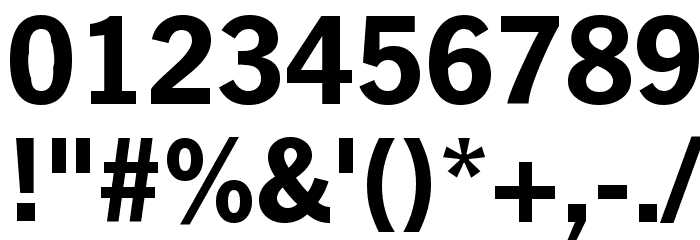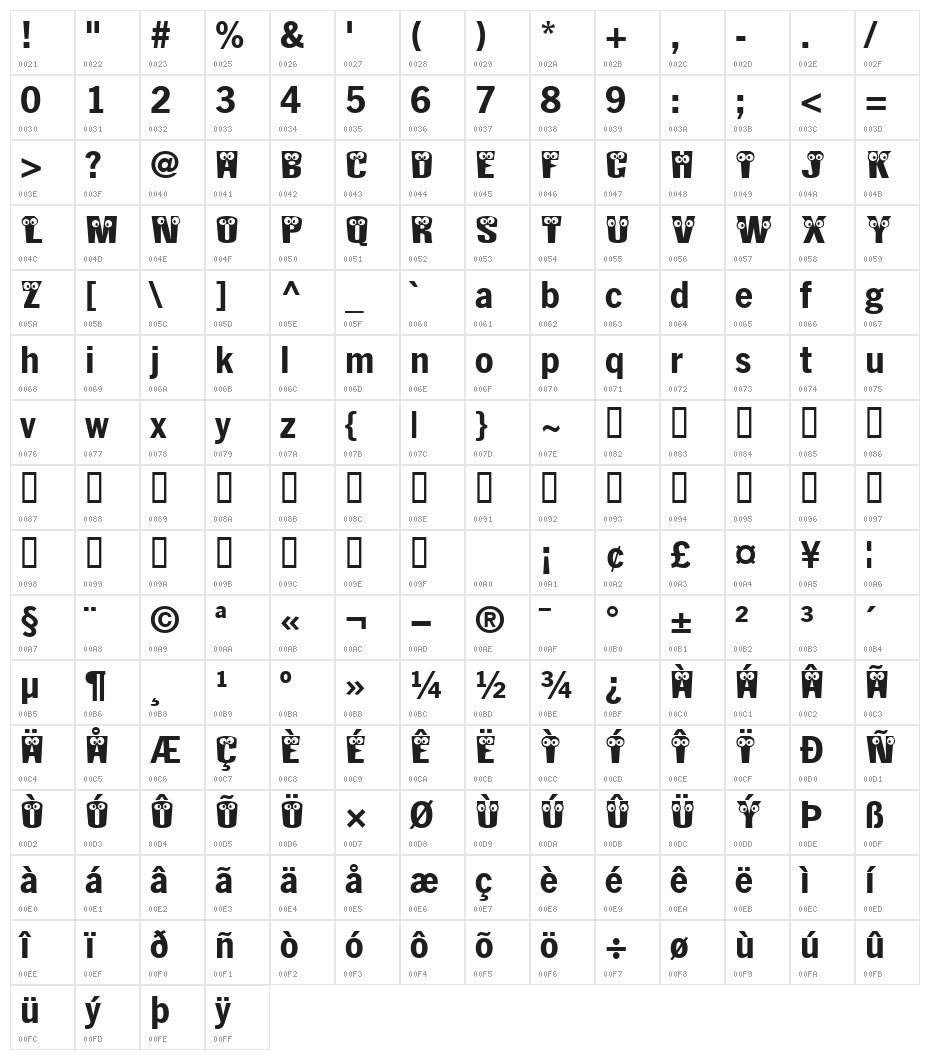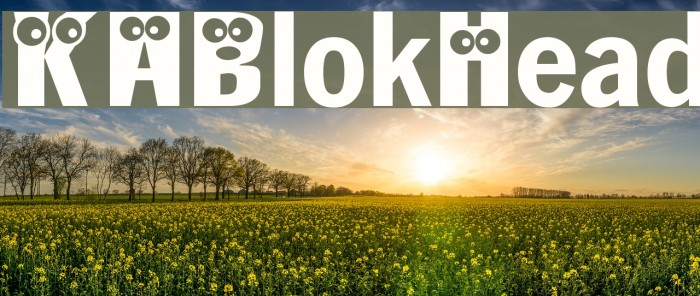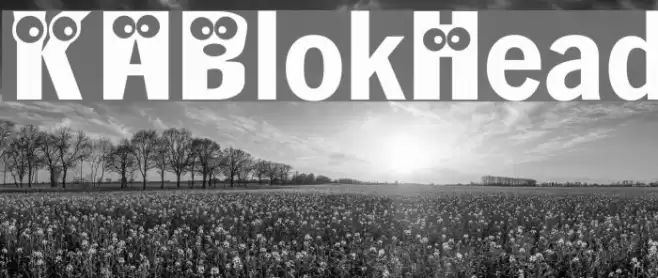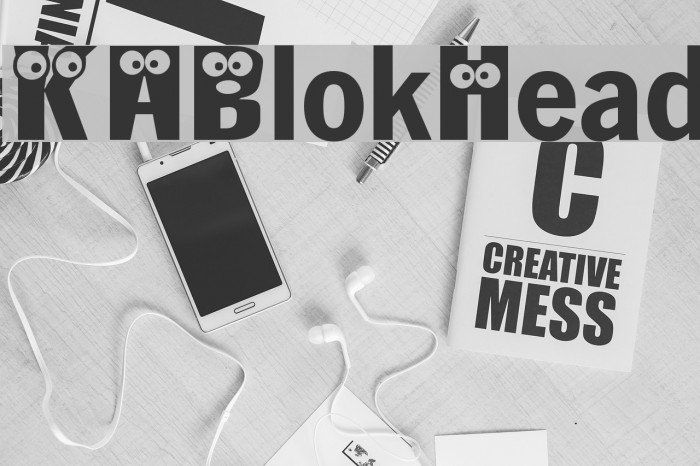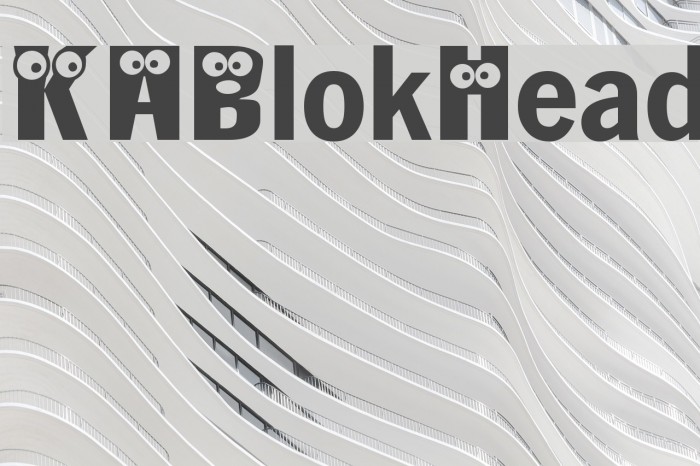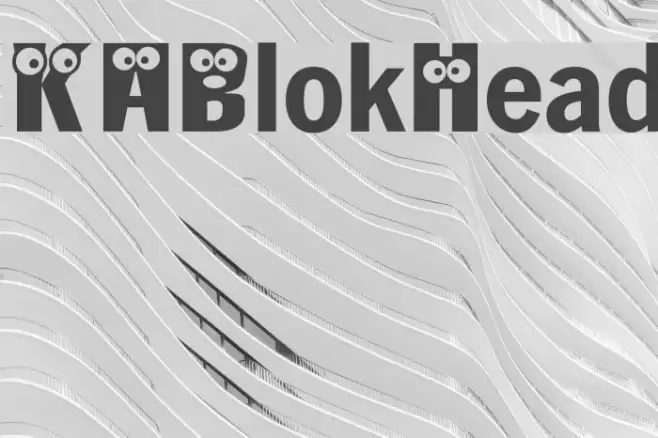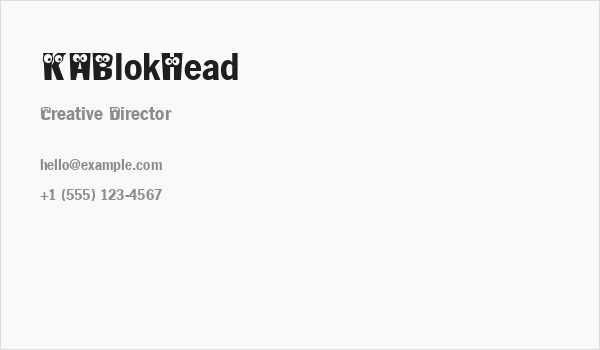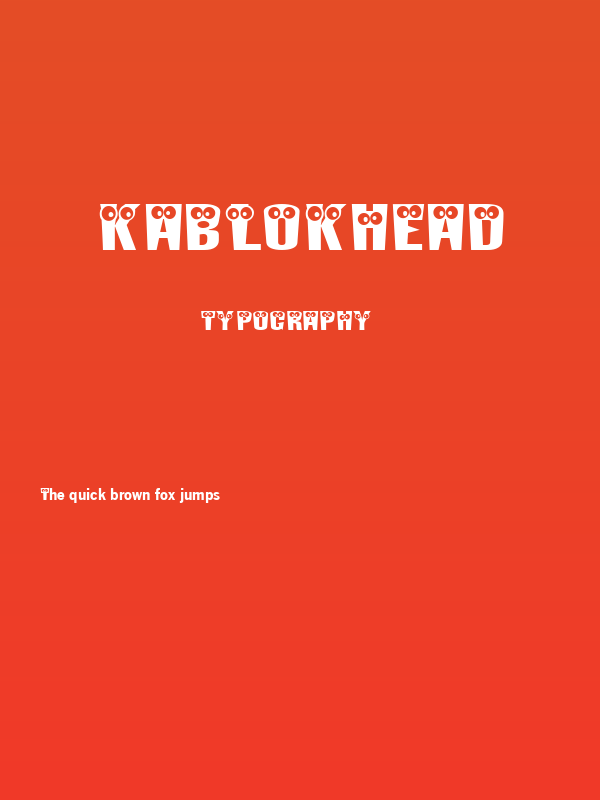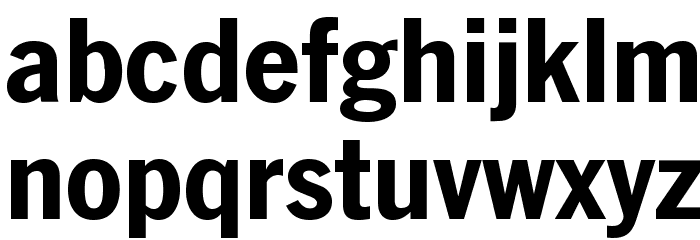
KABlokHead Font
KABlokHead Description
This playful and bold font features uppercase letters with a unique twistΓ’β¬βeach character has a pair of eyes, giving it a whimsical and cartoonish appearance. The lowercase letters maintain a strong, solid structure, complementing the uppercase's decorative style. Numbers and special characters are designed with the same boldness, ensuring consistency throughout. The font's thick strokes and uniform weight make it highly legible, while the eye-catching design adds a fun and engaging element. Perfect for projects that require a touch of humor and creativity, this font stands out with its distinctive personality.